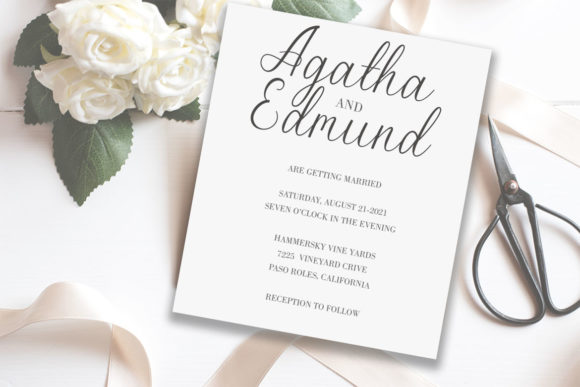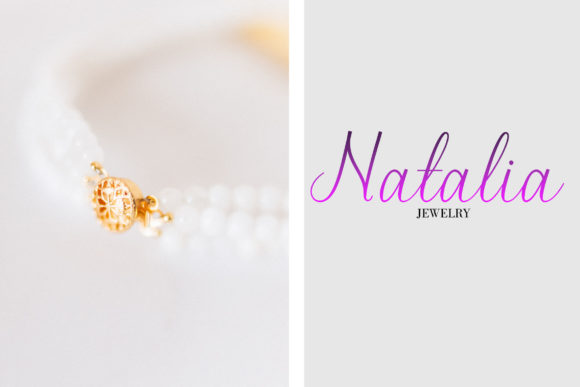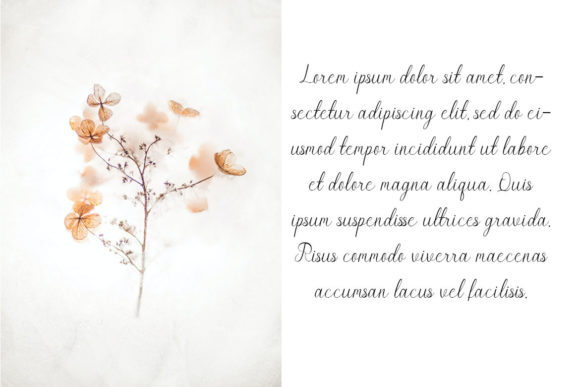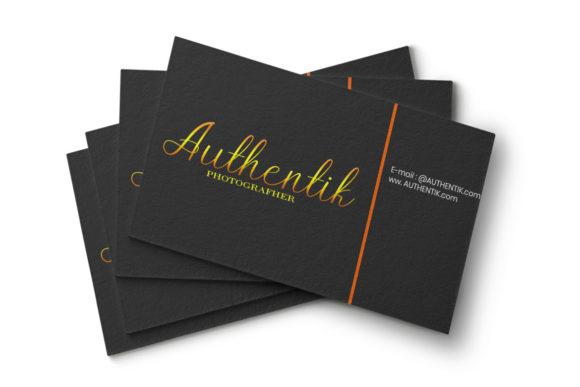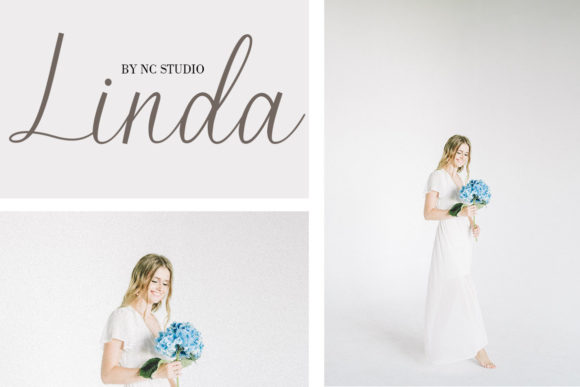
The Perfect Script Font for Your Next Creative Project
You’ve spent hours brainstorming ideas, pouring your heart and soul into your design, and finally, it’s time to choose the perfect font to bring it all together. The search is on, and you’re determined to find that one font that will elevate your design from good to great. That’s where the Bigdream Font comes in – a lovely and delicate script font that exudes elegance and class.
Designed specifically for those who crave a beautiful and refreshing look, the Bigdream Font is a game-changer for designers. Its subtle charm and sophistication make it the perfect choice for anything from wedding invitations to branding materials. Whether you’re a seasoned pro or just starting out, the Bigdream Font is a valuable addition to your design toolkit, offering endless possibilities for creativity and expression.
Key Features of Bigdream Font
- Size and Resolution: The font family includes a range of weights and styles, with each font available in 3 different sizes (Small Caps, Standard, and Large Caps), and a high-resolution design suitable for print and digital use.
- Unique Characteristics: Bigdream Font features a distinctive, dreamlike quality with intricate details and ornate flourishes, making it perfect for creating visually striking designs and typography.
- Script Support: The font includes support for a wide range of languages, including Latin, Cyrillic, and Greek scripts, making it a versatile choice for global branding and communication.
- Kerning and Ligatures: Bigdream Font includes carefully crafted kerning and ligature pairs, ensuring that text sets with this font look smooth, elegant, and highly readable.
Bigdream Font Review
As a designer, I’ve had the chance to work with Bigdream Font, and I must say, it’s a unique and interesting addition to any design project. ✨ One of the things that stands out about Bigdream Font is its versatility. It can be used for a wide range of applications, from logos and branding to body text and headings.
- ✨ Versatile font style: Bigdream Font can be used for a variety of design projects, making it a great addition to any designer’s toolkit.
- ✨ Unique character: The font’s quirky and playful personality can add a lot of character to a design, making it stand out from more generic fonts.
- ✨ Great for creative projects: Bigdream Font is perfect for creative projects that require a bit of flair and personality.
However, there are a few limitations to consider ⚠️:
- ⚠️ Limited legibility: At smaller font sizes, Bigdream Font can become a bit difficult to read, which may limit its use in certain contexts.
- ⚠️ Not suitable for formal documents: Due to its playful nature, Bigdream Font may not be the best choice for formal documents or projects that require a more professional tone.
Overall, I think Bigdream Font is a great choice for designers who are looking for a unique and versatile font that can add some personality to their designs. While it may have some limitations, I believe it’s a valuable addition to any designer’s toolkit.
The Bigdream font is ideal for creative projects, such as:
– Designing wedding invitations and stationery.
– Creating eye-catching social media graphics.
– Designing branding materials, such as logos and business cards.
For the best results, use the Bigdream font in bold and colorful combinations to add a touch of elegance and sophistication to your designs.